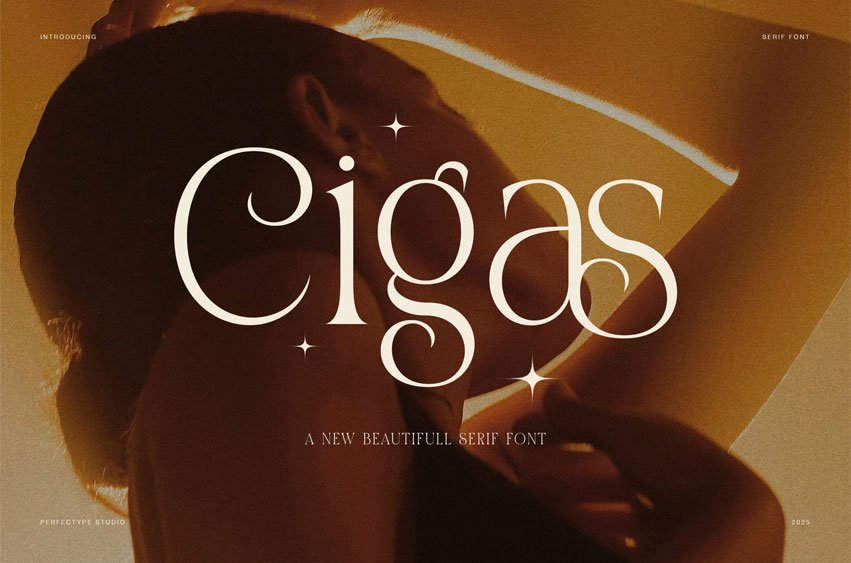
Cigas Font is an elegant serif font that expresses warmth, grace, and refined character. The design draws inspiration from editorial typography and classic letterforms. At the same time, it introduces a modern softness that feels current and inviting. As a result, Cigas delivers a luxurious tone without losing clarity.
Moreover, Cigas features smooth curves, balanced contrast, and confident proportions. These elements work together to create a calm visual rhythm. Therefore, designers can use this font to communicate sophistication while maintaining readability. Each letter feels intentional, which helps every layout appear polished and professional.
Designed for Story-Driven Visuals
Cigas supports designers who focus on mood and storytelling. Because the letterforms feel expressive and organic, the font performs beautifully in branding and editorial layouts. In addition, its elegant structure enhances lifestyle visuals, fashion campaigns, and creative portfolios.
Designers often choose Cigas for hotels, cafés, florists, and candle brands. The font adds emotional depth while keeping a clean appearance. Furthermore, Cigas adapts easily to magazine covers, lookbooks, and social media graphics. As a result, your designs feel cohesive across multiple platforms.
Functional and Flexible Typography
Cigas combines beauty with usability. The font includes uppercase and lowercase letters, numerals, punctuation, and refined ligatures. These features allow designers to create smooth typographic flow. Meanwhile, the spacing remains balanced, which improves readability in both print and digital use.
Because Cigas maintains clear contrast, it performs well in headlines and short paragraphs. Therefore, designers can confidently use it for posters, websites, packaging, and branding materials. The font delivers consistency while allowing creative freedom.
Why Choose Cigas?
- Elegant serif style with soft curves
- Refined ligatures for natural flow
- Ideal for branding and editorial projects
- Strong readability across media
- Timeless design with a warm modern feel
In conclusion, Cigas offers more than beautiful letterforms. It gives designers a reliable serif font that brings elegance, emotion, and harmony to every visual story.